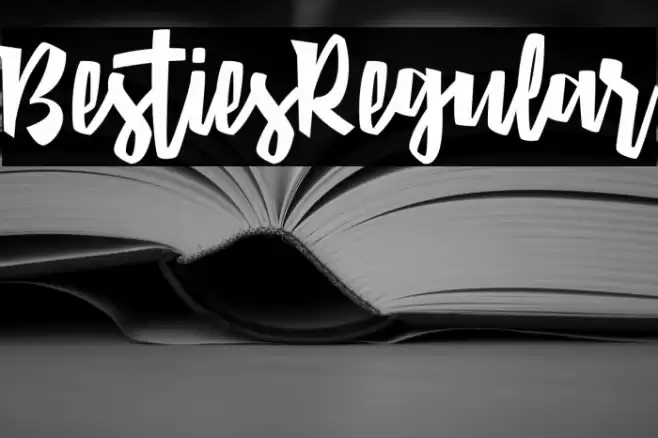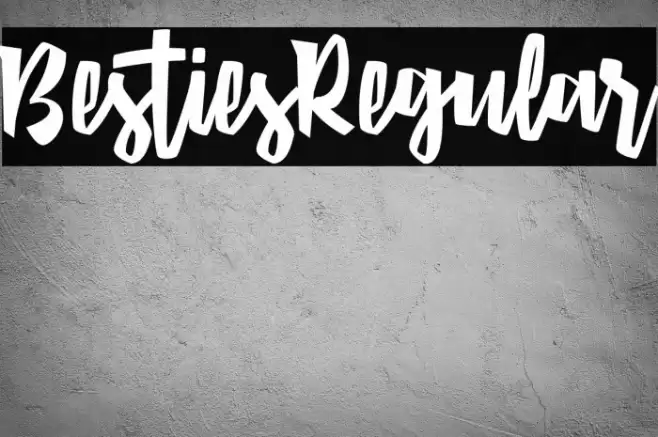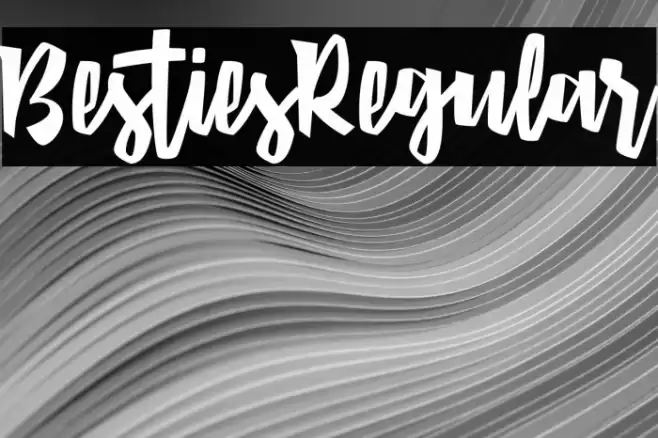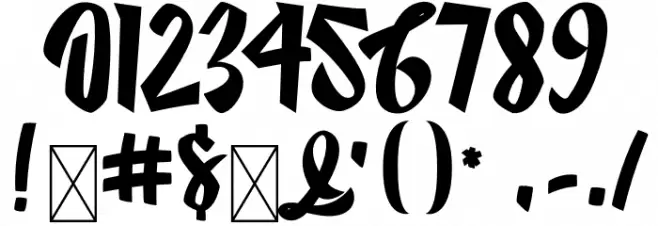
BestiesRegular Font
BestiesRegular Description
This font features a bold and expressive handwritten style, characterized by its dynamic and flowing letterforms. The uppercase letters are bold and slightly slanted, giving a sense of movement and energy. The lowercase letters maintain a consistent style, with some letters featuring unique loops and curves that add to the font's playful nature. The numerals are equally bold, maintaining the font's overall aesthetic. Special characters are included, matching the font's energetic and lively style. This font is perfect for projects that require a personal and informal touch.
A bold, expressive handwritten font with dynamic and flowing letterforms from Regular fonts.